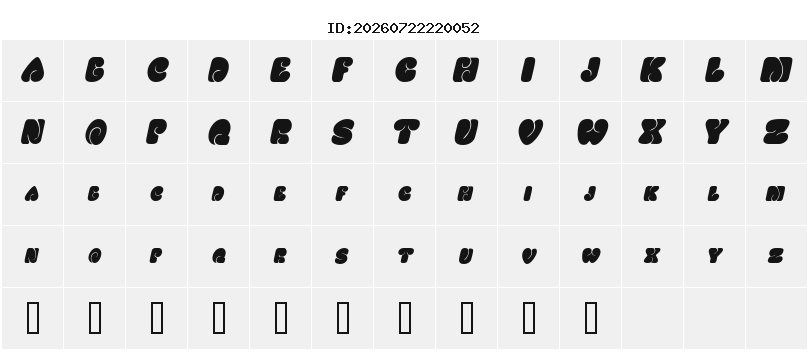
MotherhoodDisplaySCapsSSi Preview
• Font Name: MotherhoodDisplaySCapsSSi
• Font ID: Macromedia Fontographer 4.1 MotherhoodDisplaySCapsSSi Italic
• Full Font Name: MotherhoodDisplaySCapsSSi Italic
• Version: Macromedia Fontographer 4.1 2/19/96
• PostScript Name: MotherhoodDisplaySCapsSSiItalic
• Character Count: 54
About MotherhoodDisplaySCapsSSi.ttf
MotherhoodDisplaySCapsSSi.ttf is a modern, elegant sans-serif font designed for ultimate readability and visual harmony. Perfect for branding, headlines, web design, and print materials.